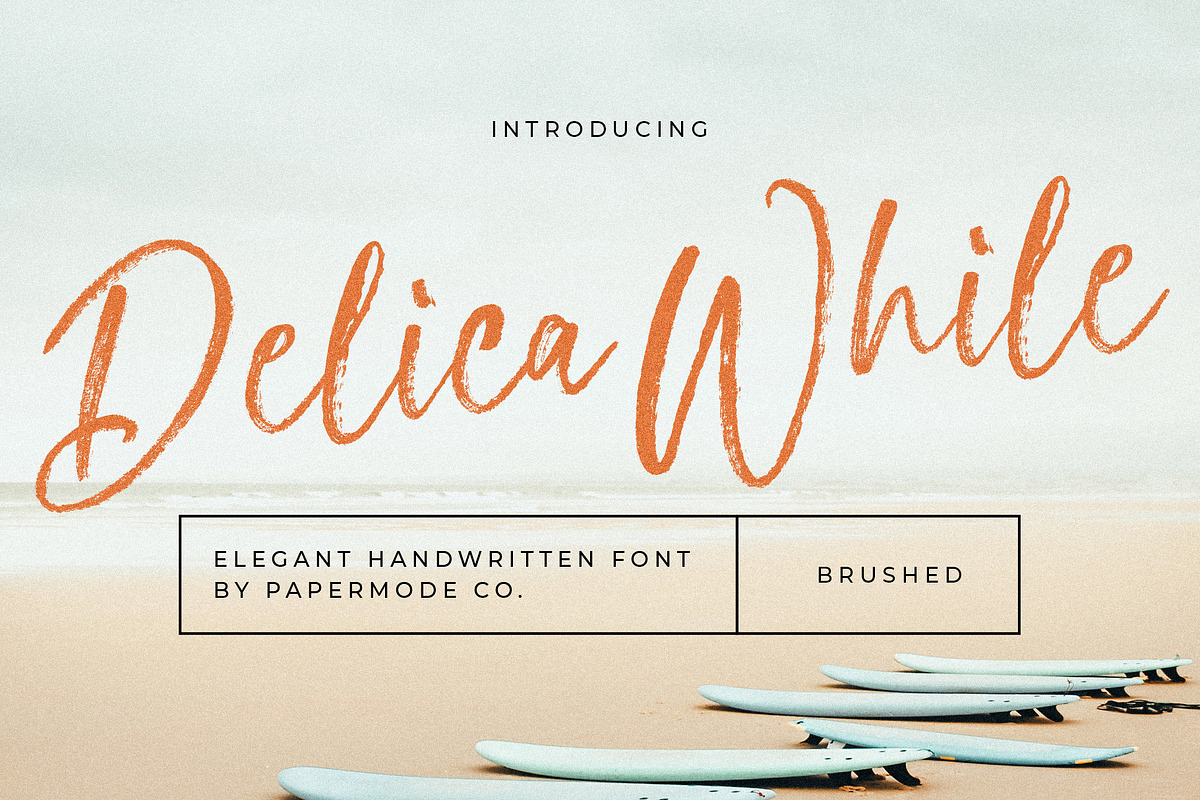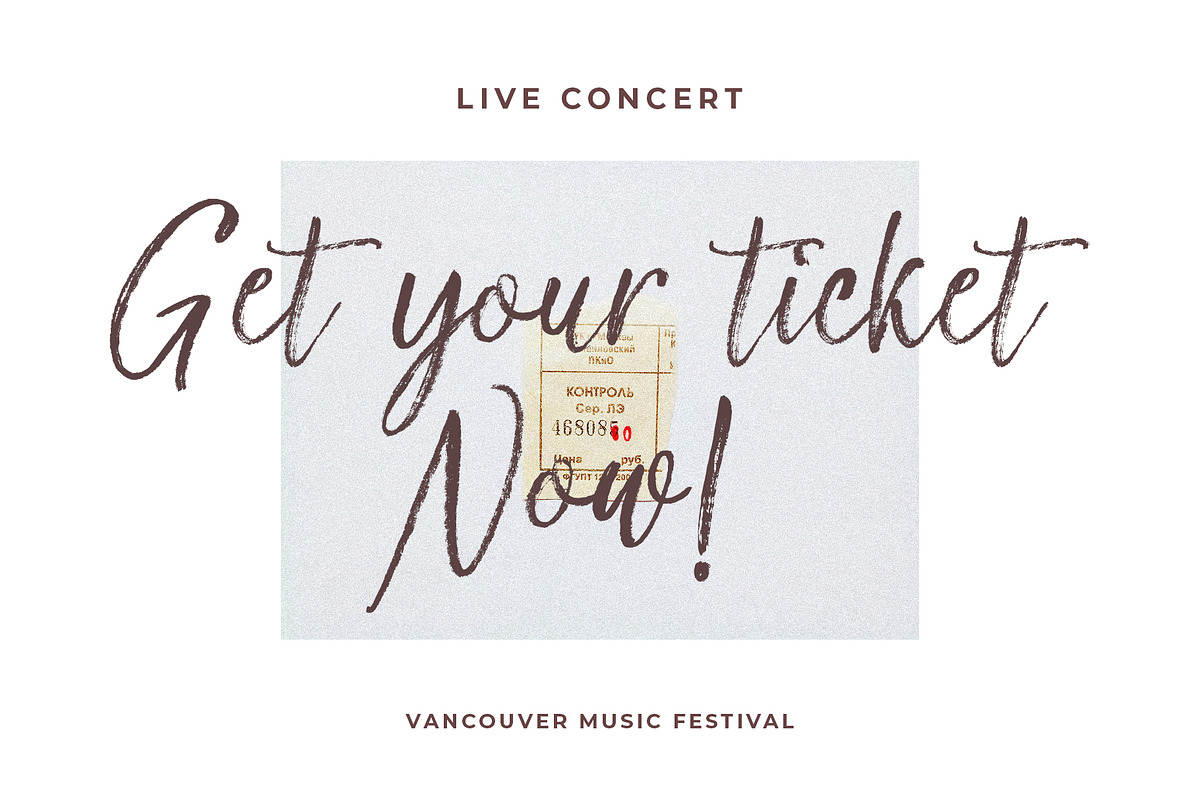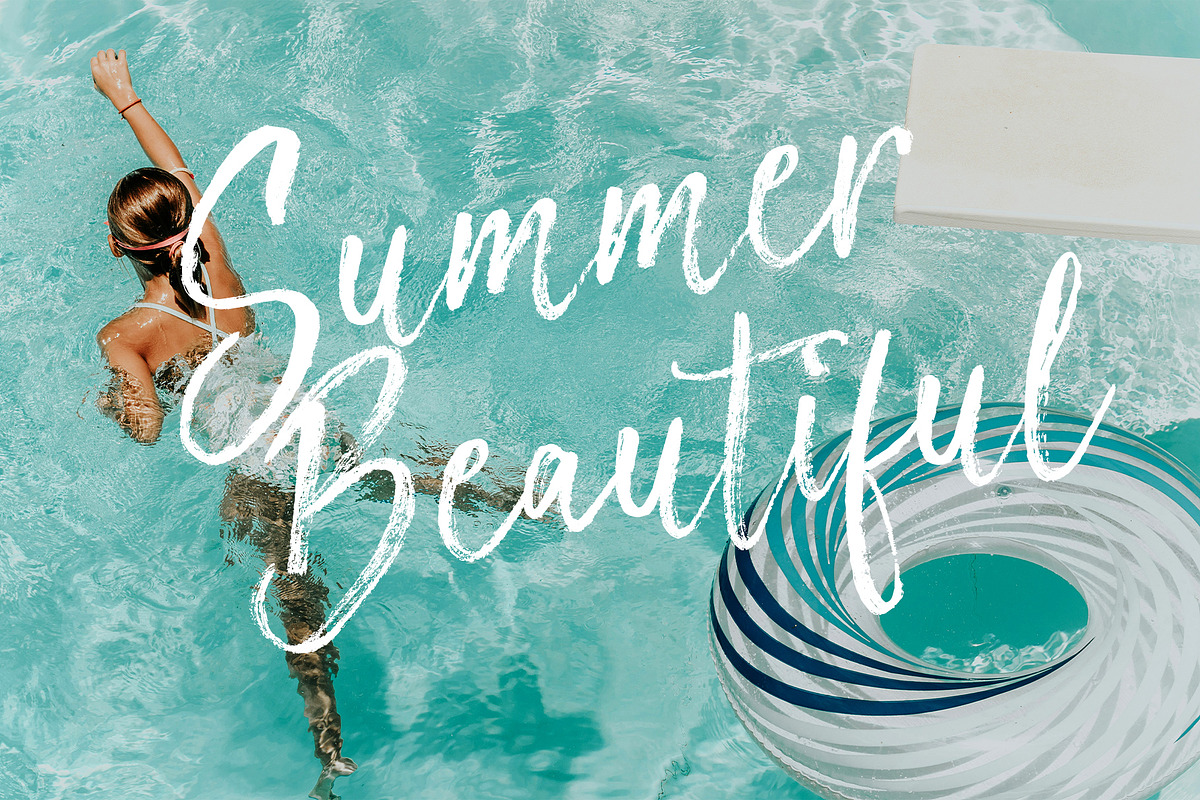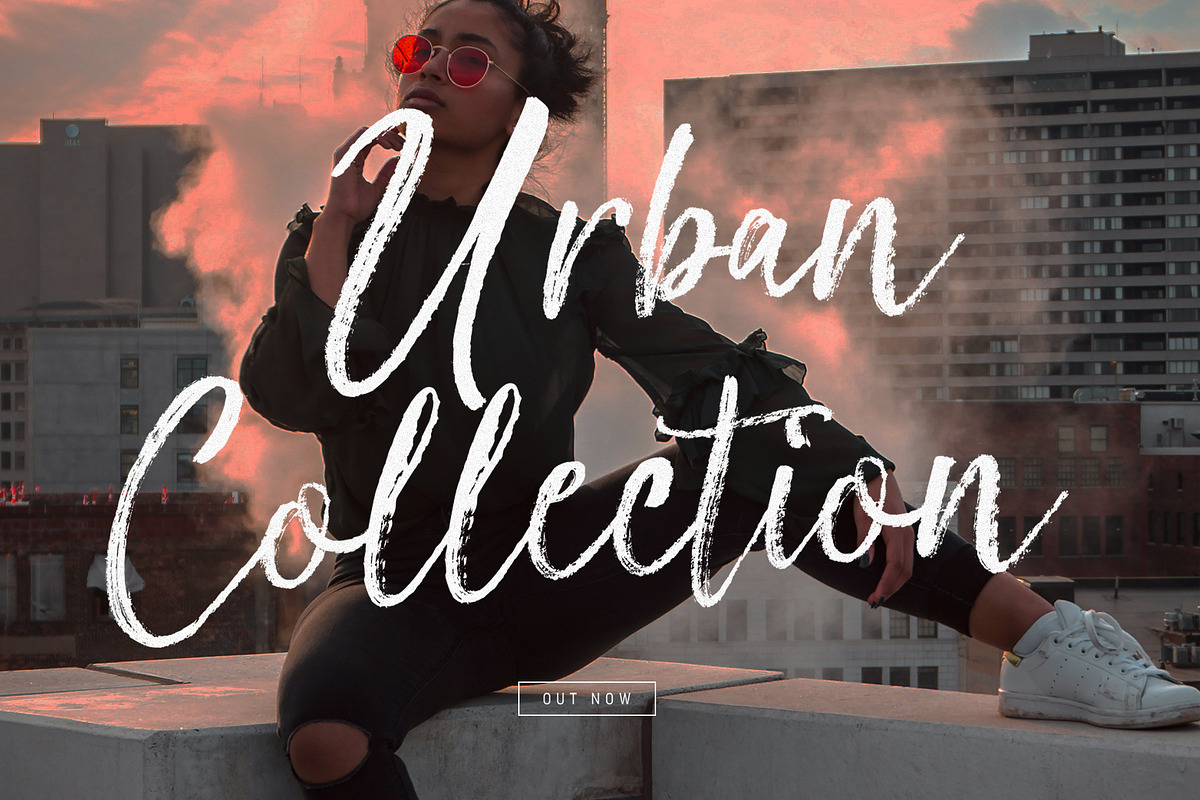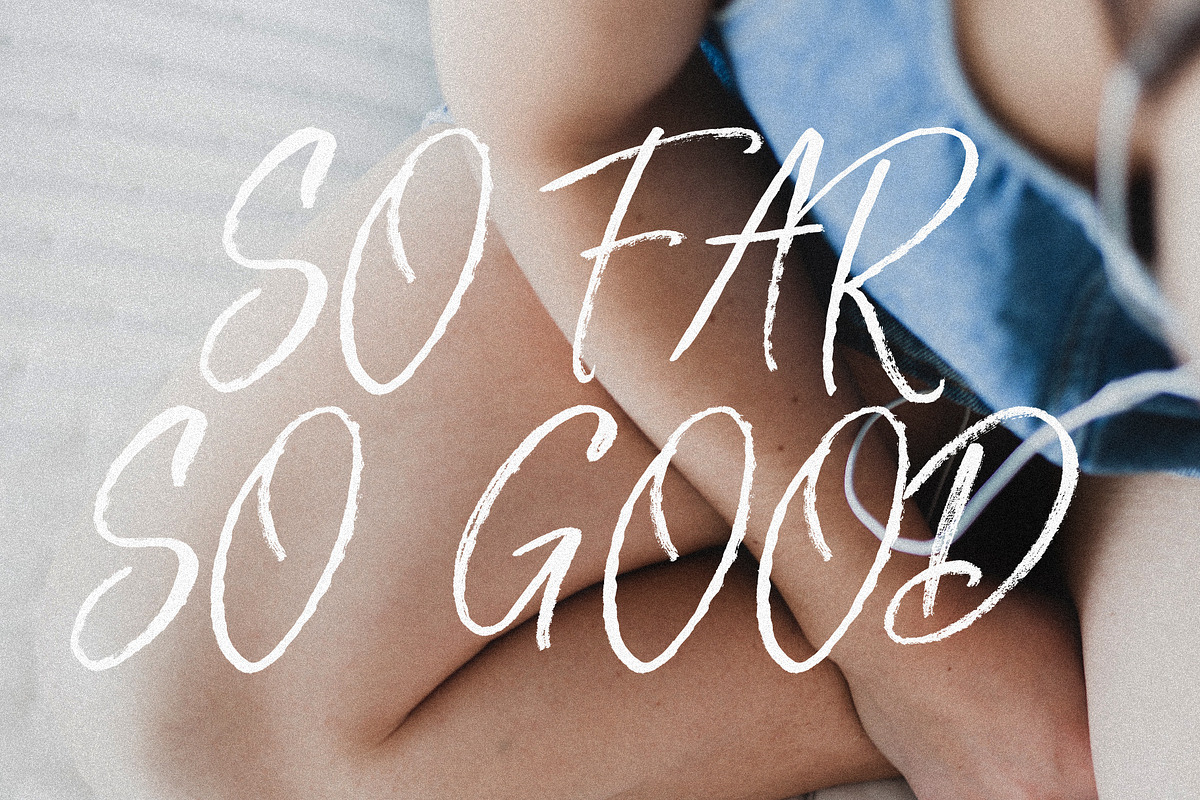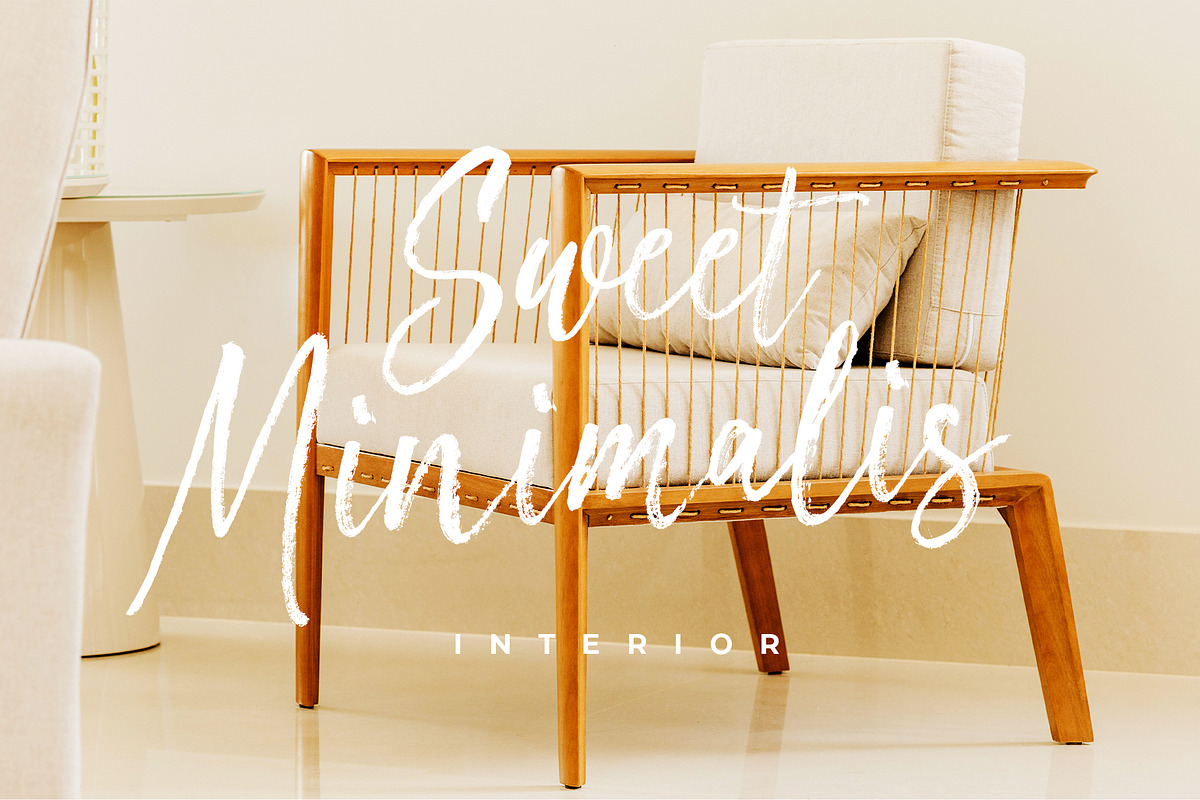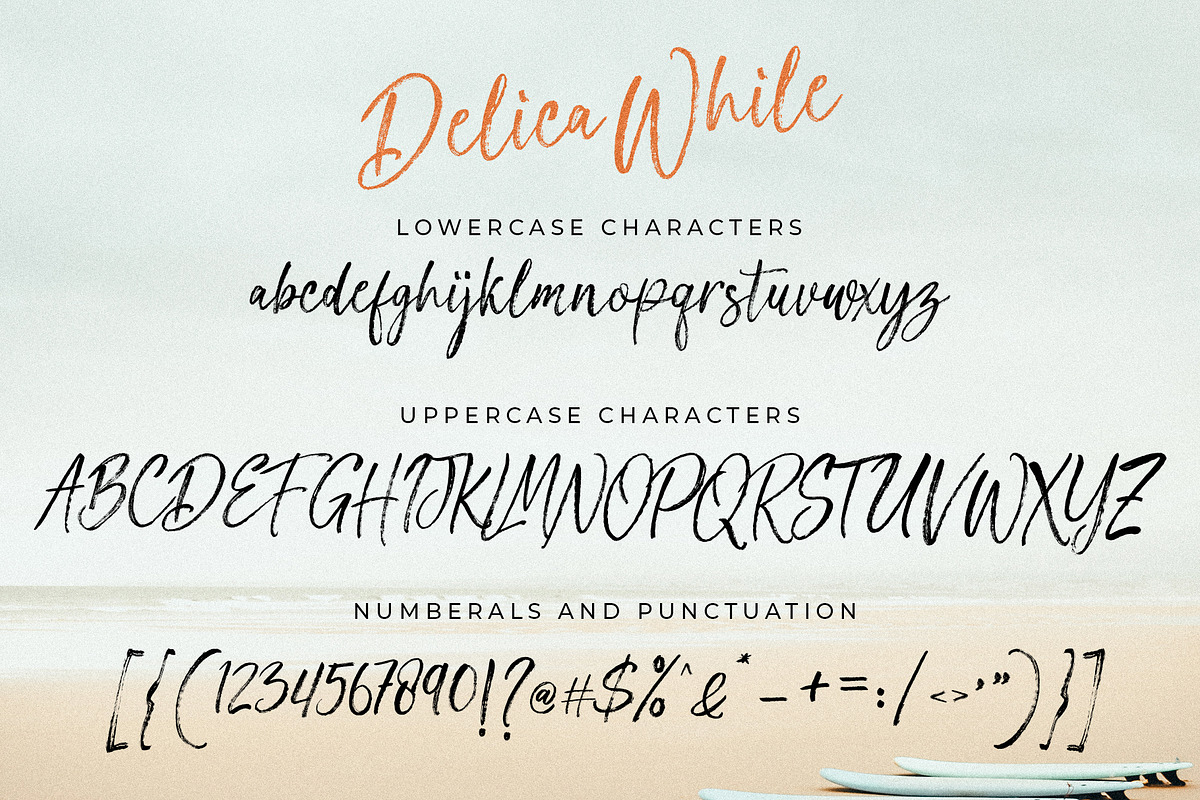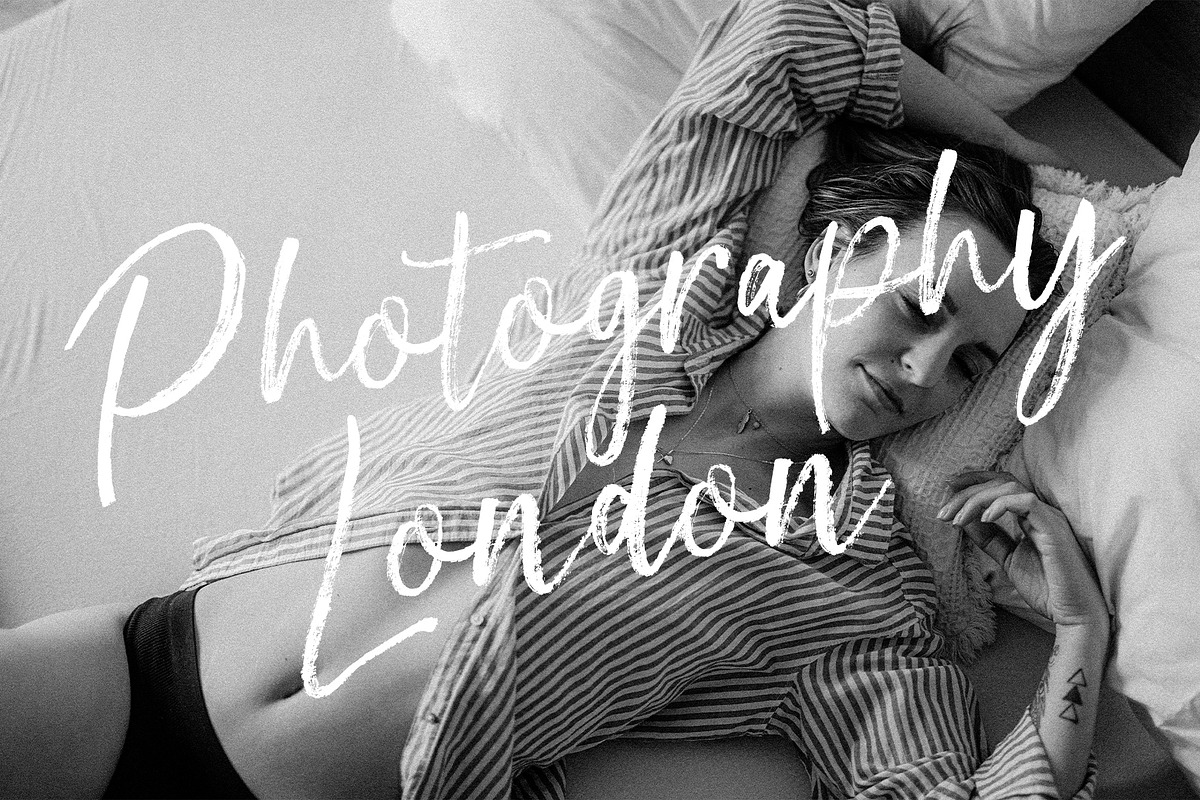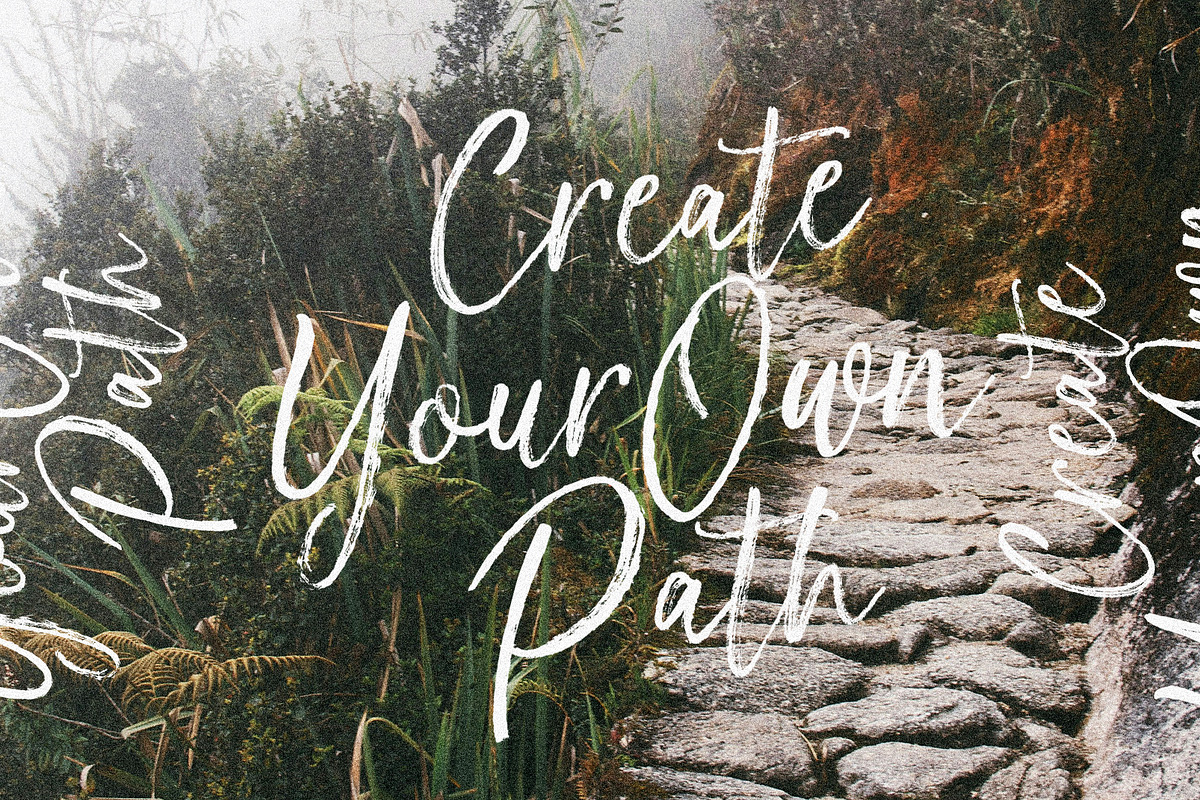
Delica While
Delica While is an organic handwritten font inspired by natural brush typography. Written with a relaxed movement using a slightly dry brush pen. This will give you a fresh and elegant design. Delica While comes with a set of upper and lower case letters, numbers.
Included Multilingual Support